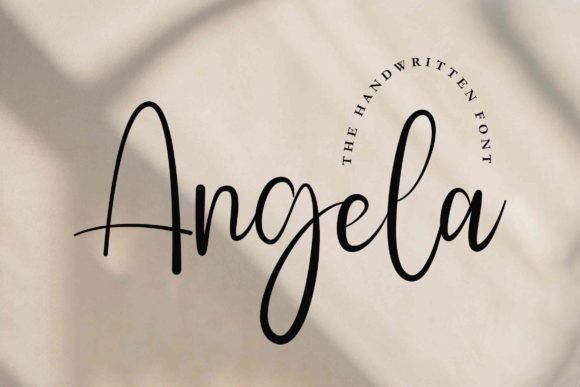
The Quest for the Perfect Font: Discovering Angela
I still remember the frustration of working on a project, hours spent searching for the ideal font that would bring my design to life. My client wanted something elegant, yet playful; something that would set their brand apart. And then, I stumbled upon Angela – a naturally flowing handwritten font that exceeded my expectations.
What Makes Angela Special?
Angela is more than just a font – it’s an expression of imagination translated into a beautiful, elegant form. This lovely font includes both lowercase and uppercase letters, the most common numbers and symbols, punctuation marks, ligatures, and alternations that make it truly special.
An Honest Review of Angela
- ✨ Elegant and beautiful handwritten style
- ✅ Includes both lowercase and uppercase letters
- ✅ Wide range of characters, numbers, symbols, and punctuation marks
- ✅ Ligatures and alternations for added beauty
- ⚠️ Limited availability of certain specialty characters
The Story Behind Angela
Angela was created with the intention of bringing a touch of elegance and beauty to designs. The designer, inspired by the flowing movements of handwritten script, crafted Angela to be a versatile font suitable for a wide range of projects.
Q: What type of projects is Angela best suited for?
A: Angela is a versatile font suitable for a wide range of projects, including formal and informal designs, such as wedding invitations, business cards, and creative branding.